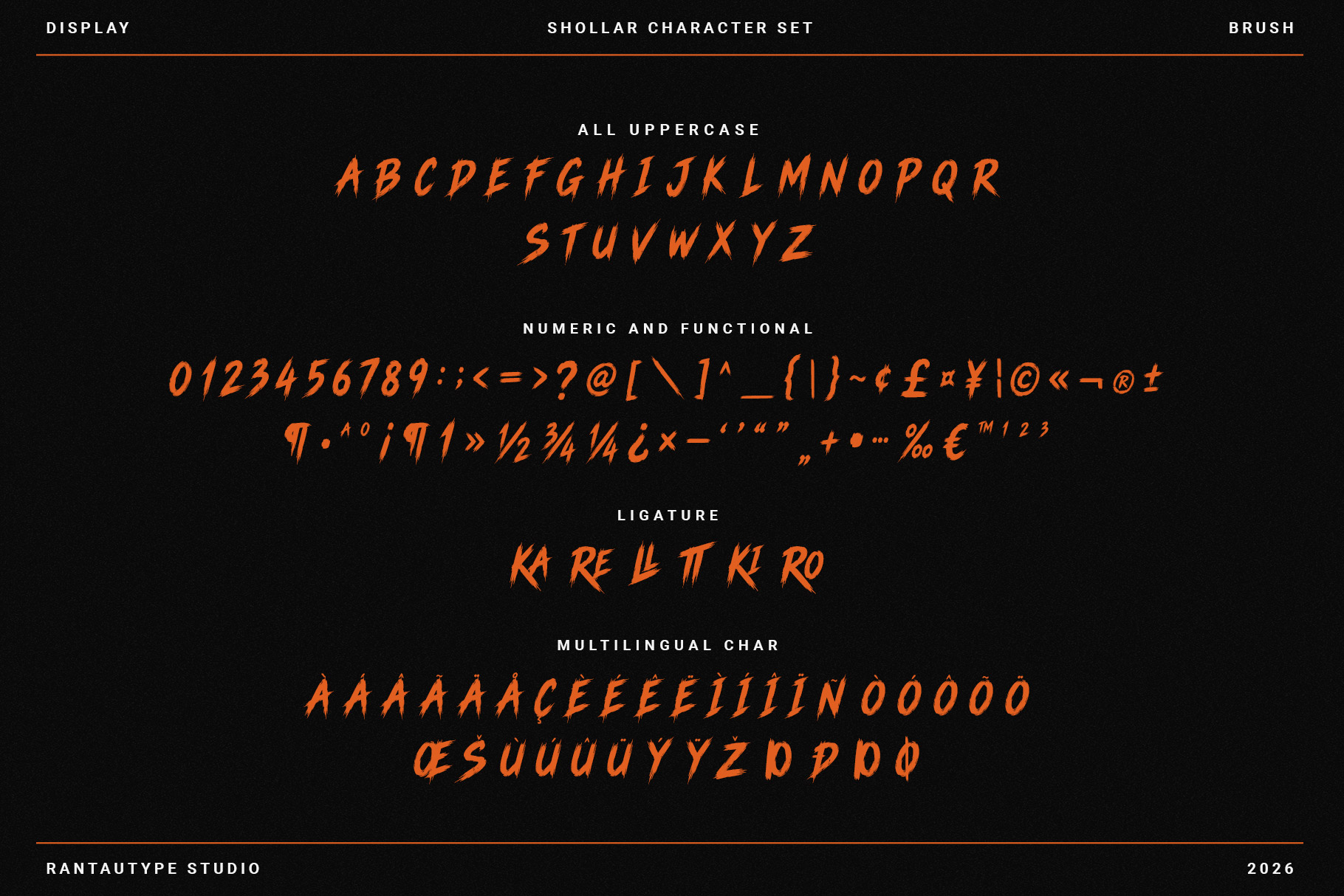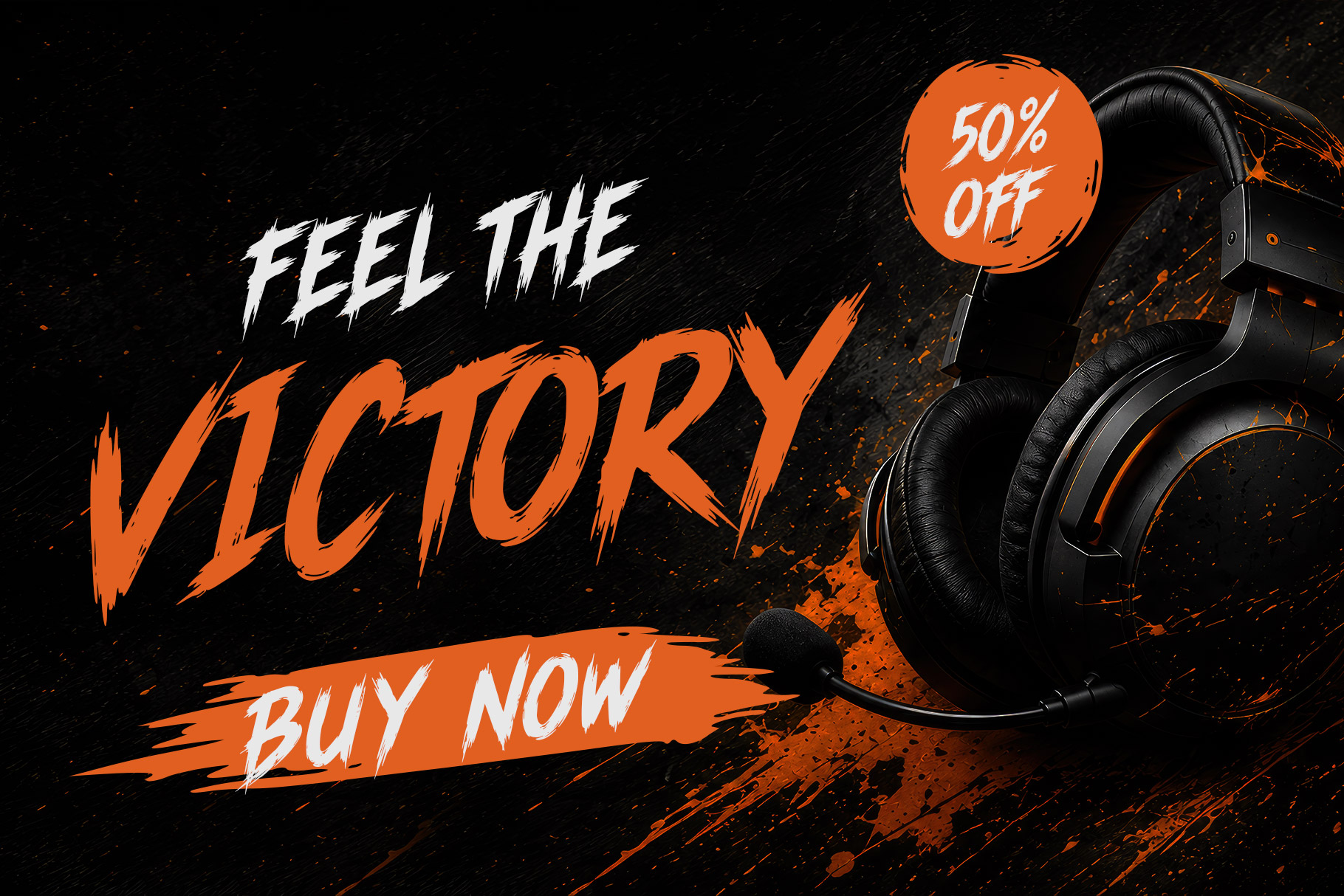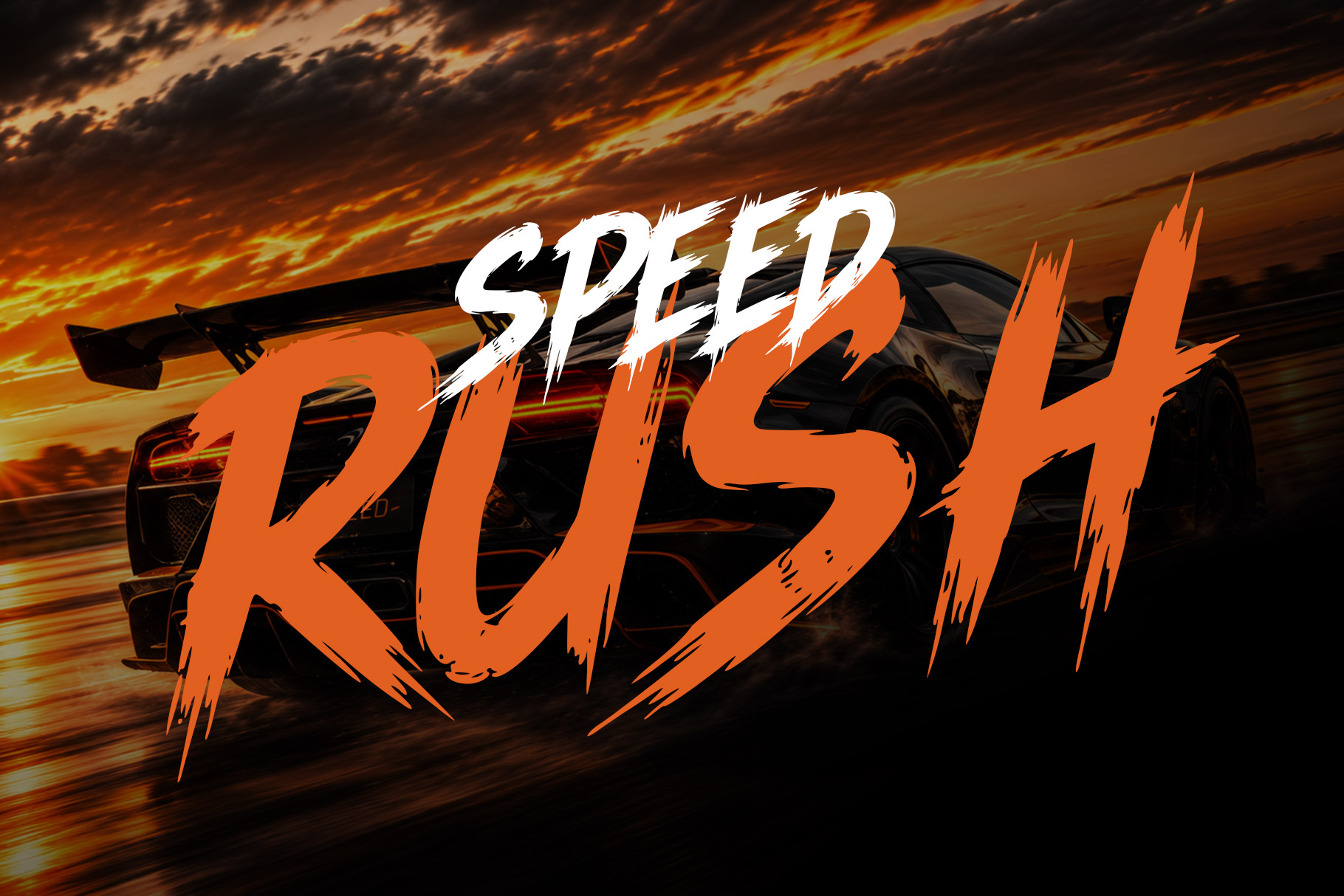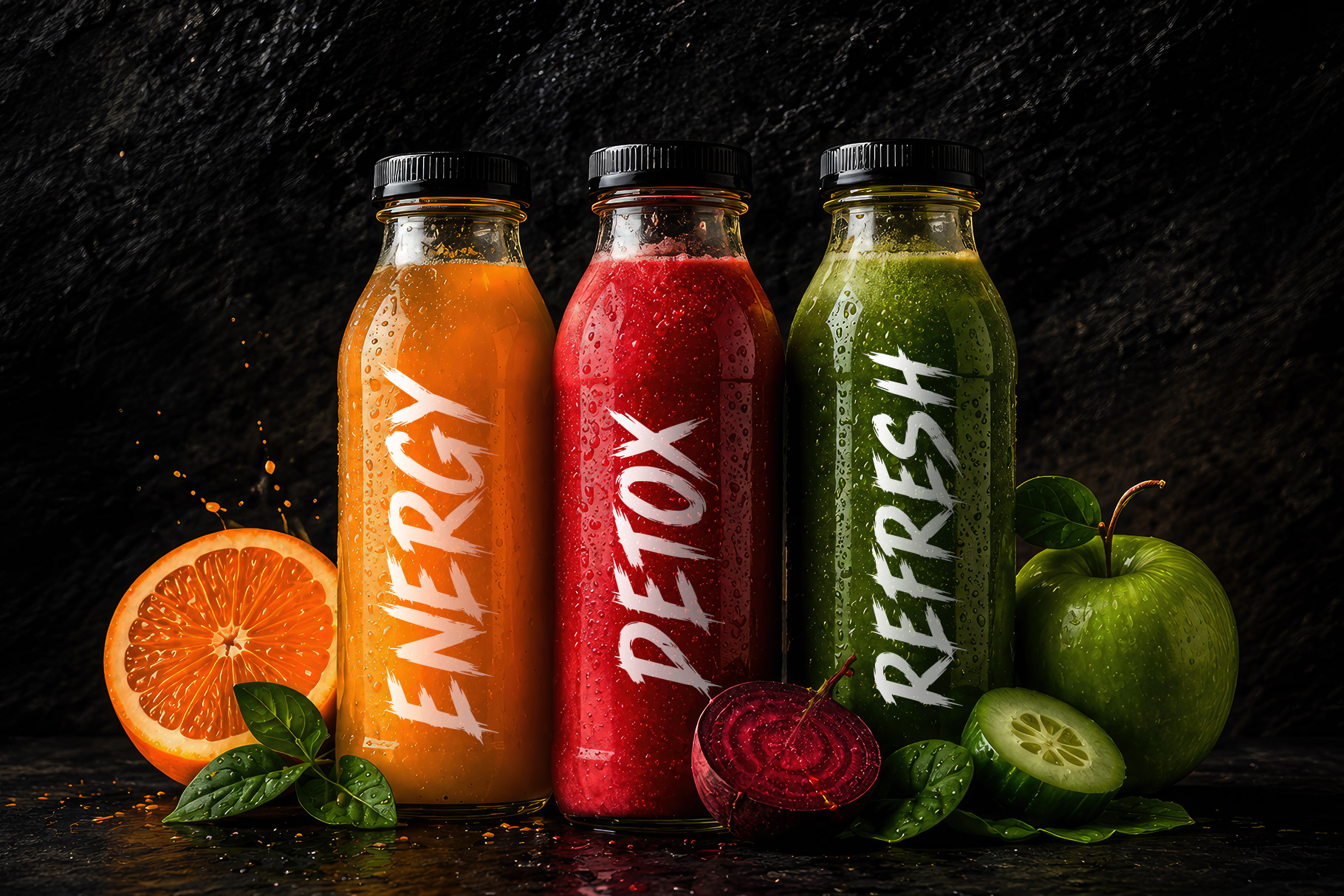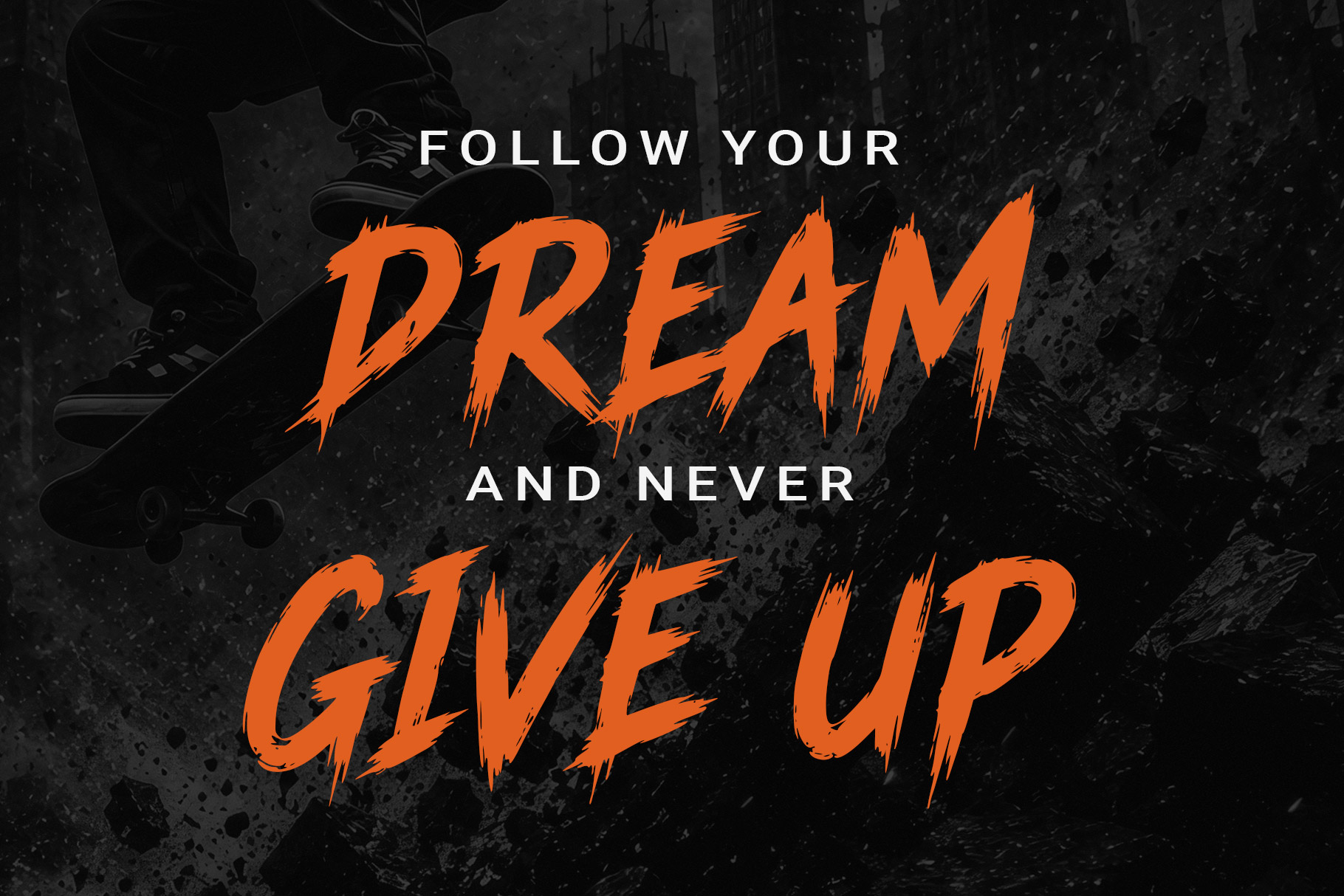
Shollar is bold brush display font crafted to deliver raw energy, fearless expression, and unstoppable attitude. Inspired by street art, extreme sports, and urban culture, every character features dynamic brush strokes with rugged edges that create a handcrafted, high-impact appearance.
Shollar Brush Font